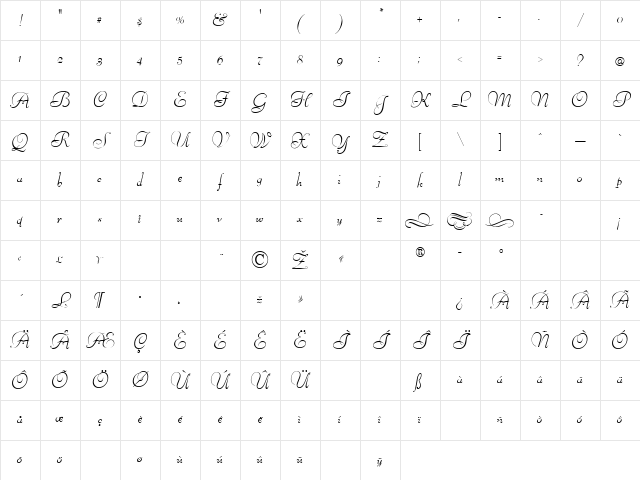
Liberty Regular Free Font
Liberty Regular
Foundry: Digitized by Dan X. Solo. Software by Dover Publications, Inc
Complete Liberty Regular glyph index. Displaying only characters natively supported by Liberty Regular font.
Design Context for Liberty
Liberty is a composed and adaptable typeface that performs quietly and consistently across a wide range of design contexts.
Who designed the Liberty Regular font?